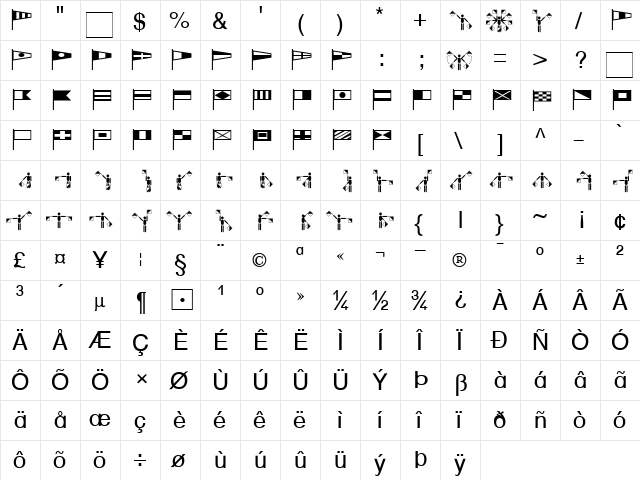
Marine Becker Normal Font Preview
Marine Becker Normal
Design Context for Marine Becker Typeface
Marine Becker is a composed and adaptable typeface that performs quietly and consistently across a wide range of design contexts.